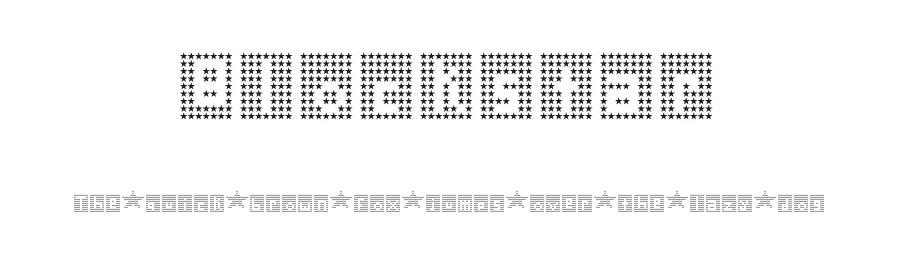
About QRcodeX Font
Headline Font / Display Font / Techno Font "QR code X"
with 1 stlye (regular) & over 50 glyphs
inkl. accents (german)
| Designer | Manuel Viergutz |
QRcodeX Font is a decorative font that shines as a display or heading face. Pair it with a clean sans-serif or serif font for body text β the contrast creates a clear hierarchy while the two styles stay balanced and easy to read.
QRcodeX Font